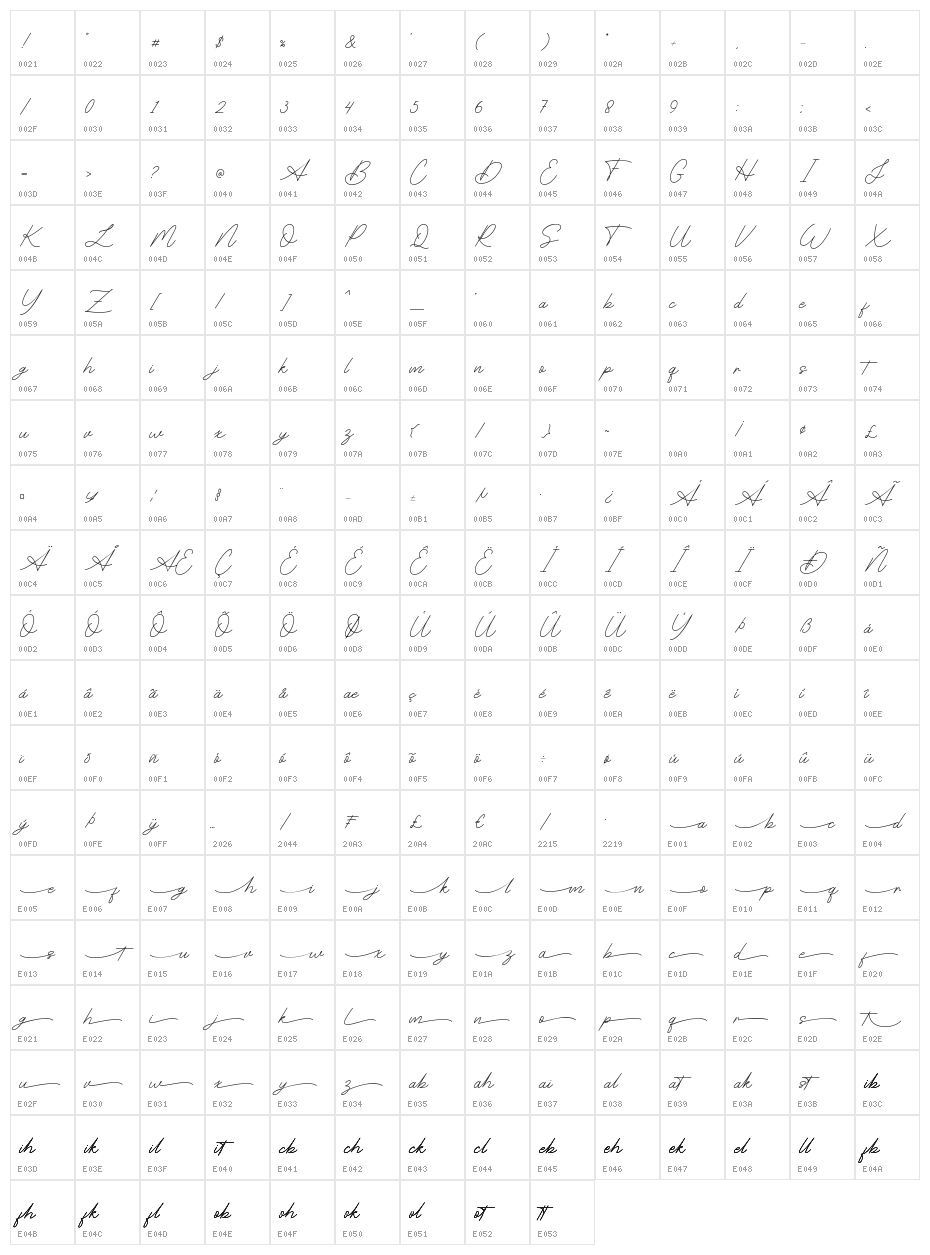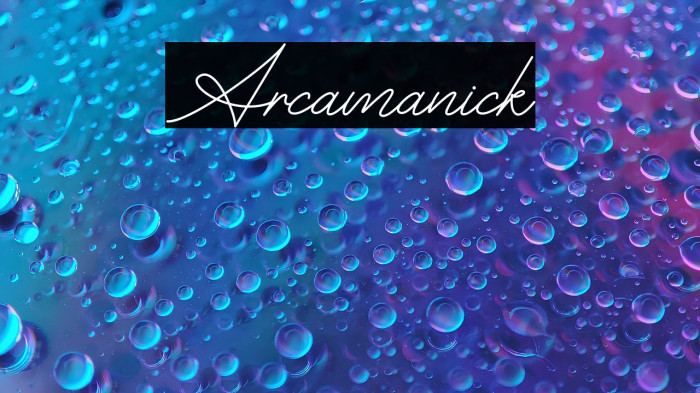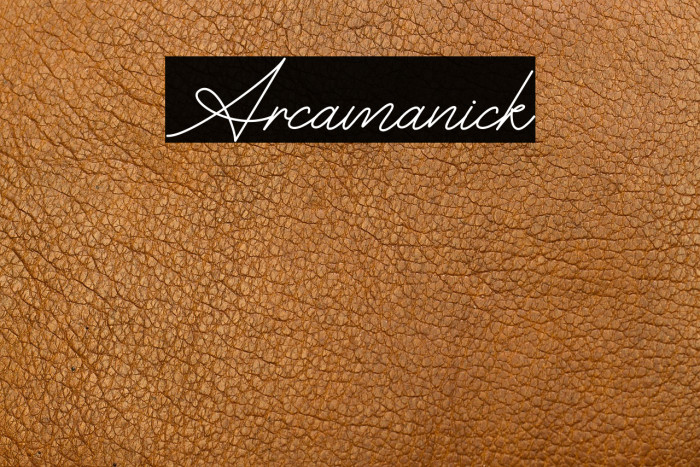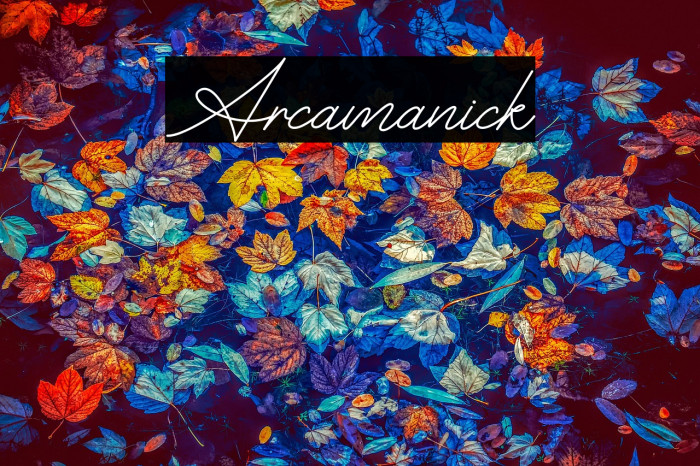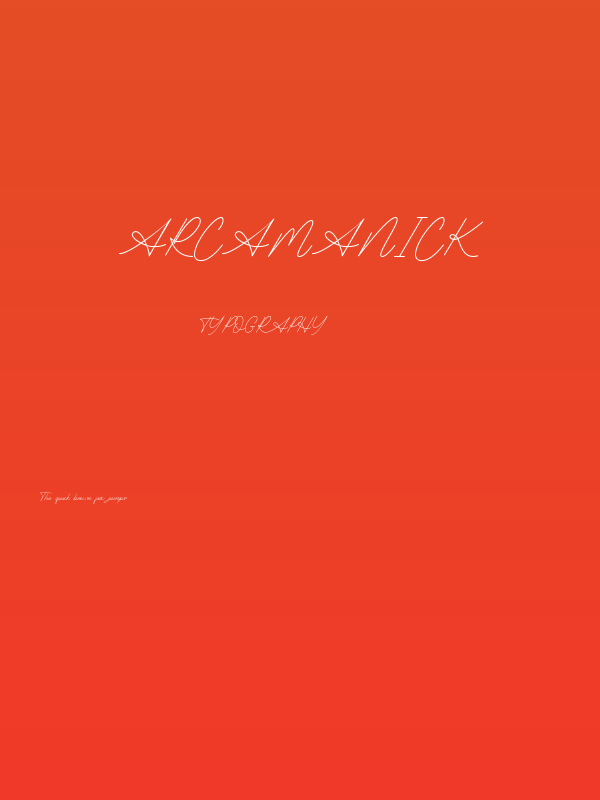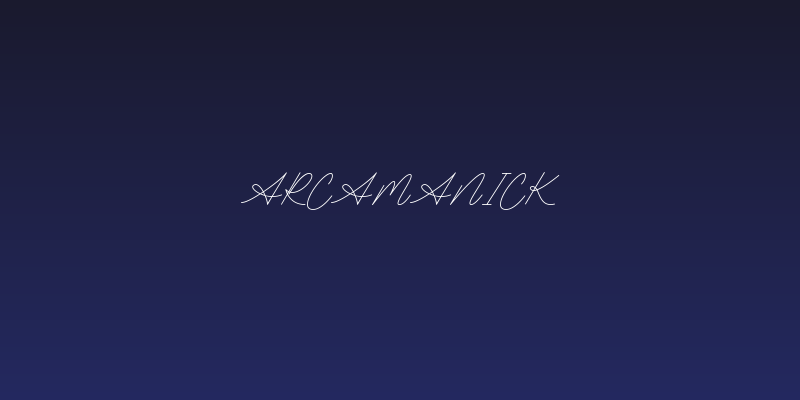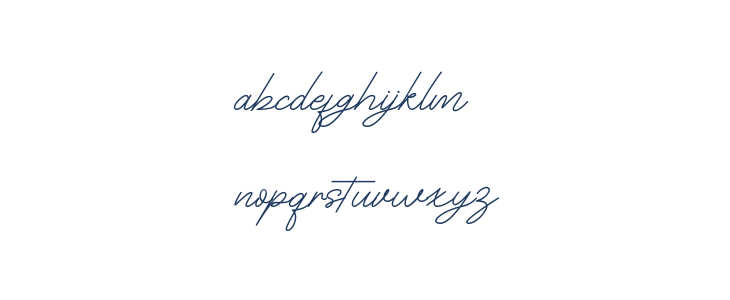
Arcamanick Font
Arcamanick Description
This font exudes a sophisticated and elegant script style, characterized by its fluid and continuous strokes. The uppercase letters are gracefully elongated, with a slight slant that adds a dynamic flow to the text. The lowercase letters maintain a consistent connection, enhancing the cursive appearance. The numerals and special characters are crafted with the same attention to detail, ensuring a harmonious look throughout. This font is ideal for projects that require a touch of elegance and personal flair, such as invitations, branding, and decorative purposes.
| Use Case | Headlines, Invitations, Branding |
| Proposed Projects | Ideal for wedding invitations, personal branding, elegant stationery, and decorative projects. |